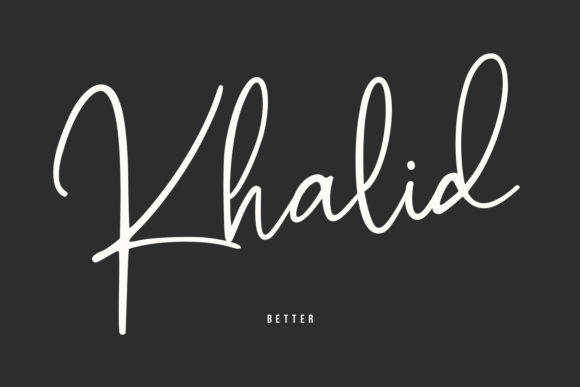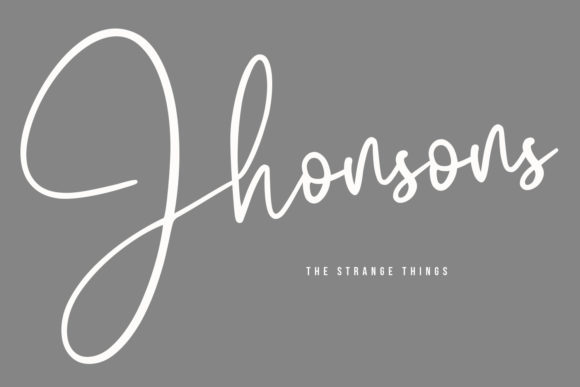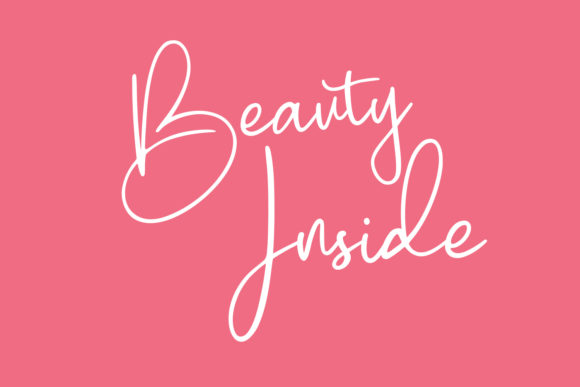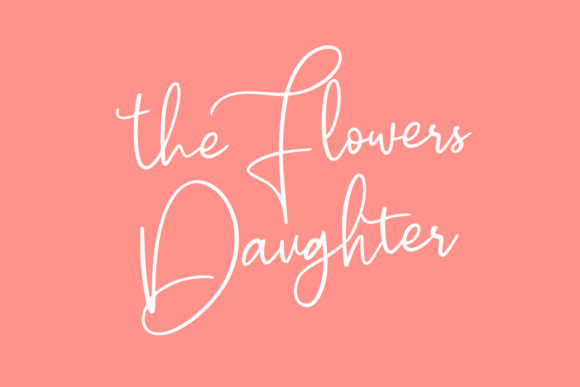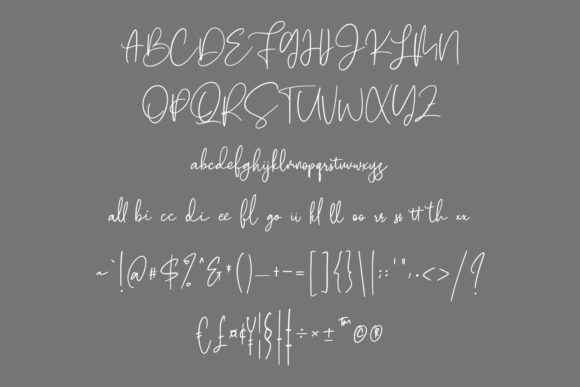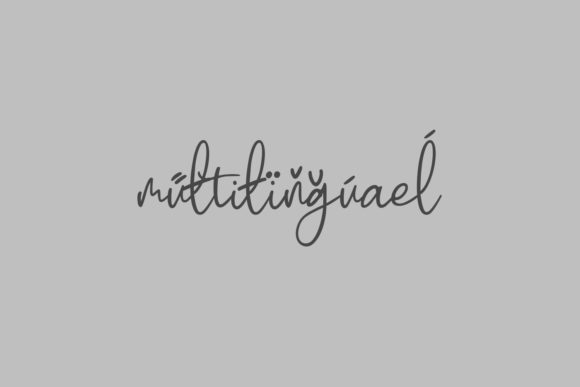
Cherrys Font
About Cherrys Font
Cherrys is a beautiful combination of timeless elegance and authentic calligraphy. It features an incredibly classic style, while still keeping a friendly feel. Cherrys is the perfect font for making original and outstanding designs.